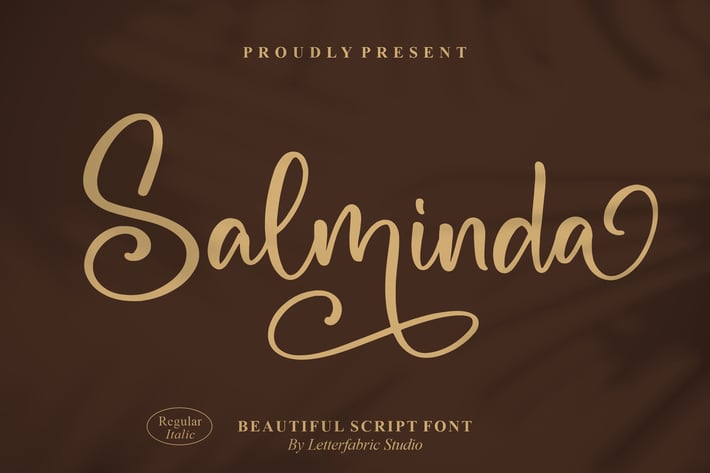
Salminda Script Font
Salminda Script Font brings elegance and fluidity to your design projects. With its graceful curves and stylish handwritten form, this font is perfect for creating timeless, sophisticated designs. Ideal for branding, wedding invitations, social media content, and any project that needs a touch of classic charm.
+ Elegant handwritten script style
+ Smooth and stylish letterforms
+ Works seamlessly for both print and digital designs
+ Multilingual support
+ Wedding invitations
+ Branding & logos
+ Greeting cards
+ Social media graphics
+ Packaging & product labels
Add timeless elegance to your projects with Salminda Script Font – the perfect choice for designs that deserve a graceful, sophisticated touch.